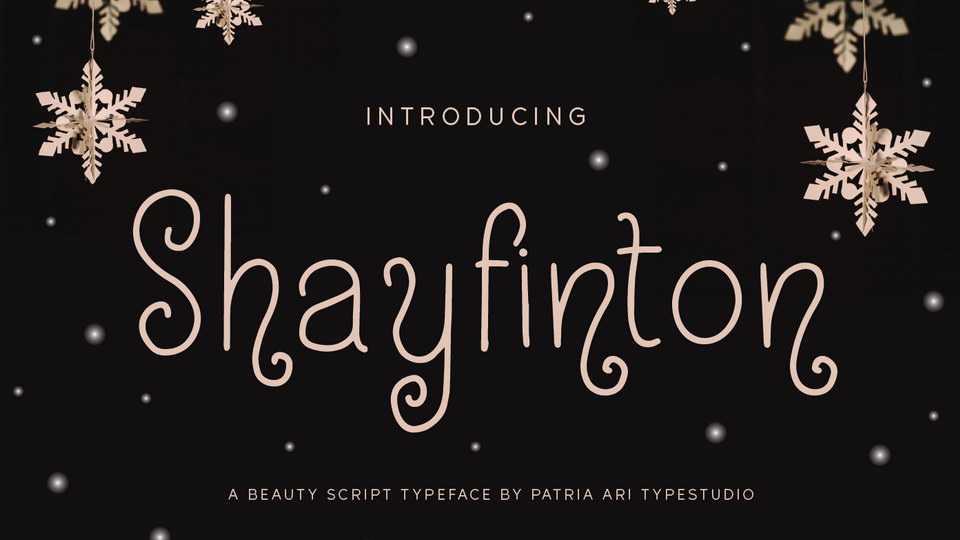
Download Shayfinton font, a cute and playful curly display typeface inspired by Christmas. Shayfinton is perfect for branding projects, invitation, greeting cards, book cover, logo, social media posts any projects that you work on.